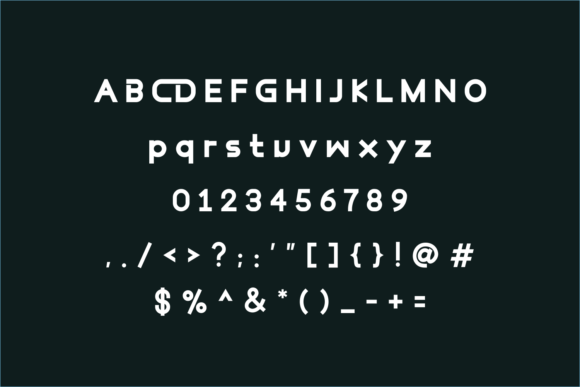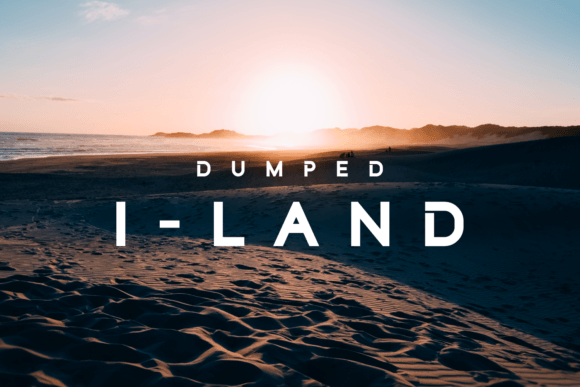
Discover the Unique Charm of Graspir Font: Elevate Your Designs with a Cool Sans Serif Font
In the world of typography, finding the perfect font that sets your design apart from the rest can be a daunting task. However, if you’re on the lookout for a cool and unique sans serif font that can elevate any creation, look no further than Graspir Font. This modern and stylish font is about to become an incredible asset to your font library, offering versatility and charm that knows no bounds.
What Makes Graspir Font Stand Out?
Graspir Font boasts a fresh and contemporary look that is sure to capture the attention of your audience. Its sans serif design gives it a clean and minimalist aesthetic, making it perfect for a wide range of projects, from branding and advertising to digital media and crafting. The font’s unique character set ensures that your designs will have a distinctive edge, setting them apart from the usual suspects in the world of typography.
The Power of PUA Encoding
One of the key features that make Graspir Font so appealing to designers and crafters is its PUA (Private Use Area) encoding. This means that the font allows easy access to all glyphs and ligatures, providing users with a wealth of creative possibilities. With PUA encoding, you can effortlessly navigate through the font’s extensive character set, incorporating various symbols, swashes, and stylistic alternates into your designs. This level of accessibility ensures that your creative process remains smooth and efficient, allowing you to focus on bringing your vision to life.
No matter the topic or theme of your project, Graspir Font is up to the task. Its neutral yet stylish appearance makes it an excellent choice for a variety of applications, including:
- Branding and Logo Design: Create memorable and impactful logos that reflect your brand’s personality with Graspir’s unique and modern aesthetic.
- Digital Media: Enhance your website, social media posts, and digital advertisements with a font that commands attention and communicates your message effectively.
- Crafting and DIY Projects: Add a personal touch to your handmade creations, such as greeting cards, invitations, and crafts, with Graspir’s distinctive charm.
- Advertising and Marketing Materials: Stand out in a crowded marketplace with promotional materials that feature Graspir’s clean and stylish typography.
Why Choose Graspir Font?
With so many fonts available, why should Graspir Font be your go-to choice? The answer lies in its perfect blend of style, versatility, and usability. Here are a few reasons why Graspir Font should be at the top of your list:
- Unique and Memorable: Graspir Font offers a fresh perspective on sans serif typography, ensuring your designs are always memorable and engaging.
- Ease of Use: Thanks to its PUA encoding, using Graspir Font is straightforward and hassle-free, allowing you to focus on the creative aspects of your project.
- Highly Versatile: Whether you’re working on a digital project or a print-based design, Graspir Font adapts seamlessly, ensuring your work always looks great.
In conclusion, Graspir Font is more than just a cool and unique sans serif font; it’s a powerful tool that can elevate your designs to new heights. Its distinctive style, combined with the practical benefits of PUA encoding, makes it an invaluable addition to any designer’s or crafter’s font library. Whether you’re looking to create striking branding, engaging digital content, or unique crafting projects, Graspir Font is the perfect choice. So why wait? Discover the unique charm of Graspir Font today and transform your designs with its modern and stylish appeal.